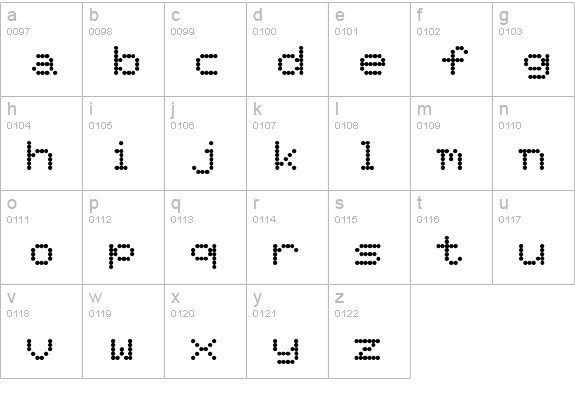
Ninepin Normal Font Details
Ninepin Normal is the standard, neutral variant in the Ninepin typeface family \xE2\x80\x94 well suited to general body text, paragraphs, and standard typographic work.